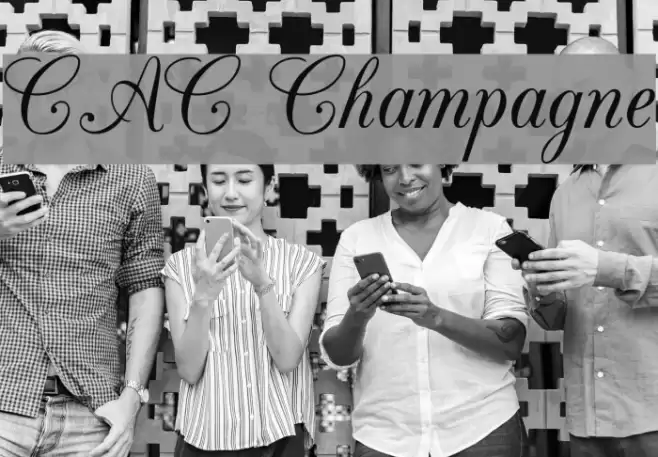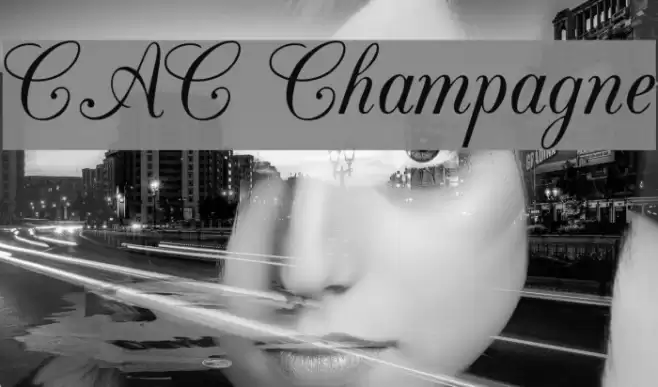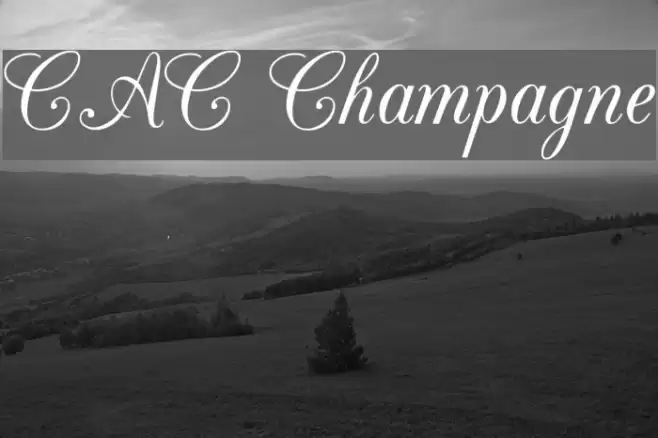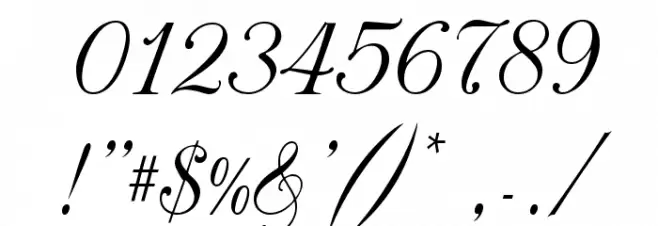
CAC Champagne Font
CAC Champagne Description
This elegant script font features a sophisticated and flowing design, characterized by its graceful curves and delicate strokes. The uppercase letters exhibit a refined and ornamental style, with intricate swashes that add a touch of luxury and flair. The lowercase letters maintain a consistent flow, complementing the uppercase with their smooth, connected forms. The numerals are stylish and well-proportioned, matching the overall aesthetic of the font. Special characters are thoughtfully designed, ensuring versatility and cohesion across various uses. This font exudes a sense of elegance and formality, making it ideal for upscale and celebratory occasions.
An elegant script font with flowing curves and ornamental swashes from Decorative fonts.
- Proposed Projects: Ideal for wedding invitations, luxury branding, elegant packaging, and formal event materials.
- Overall Style: Elegant
- Use Case: Invitations, Branding, Packaging